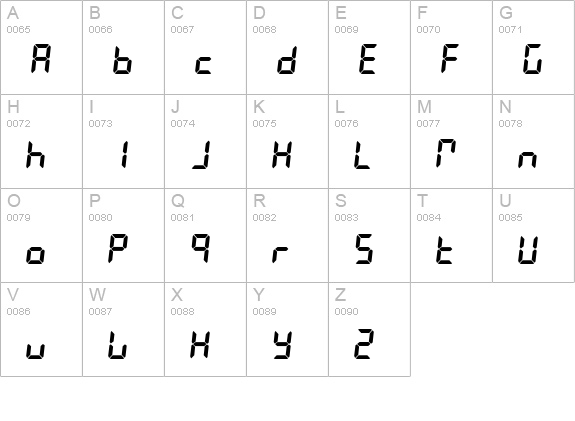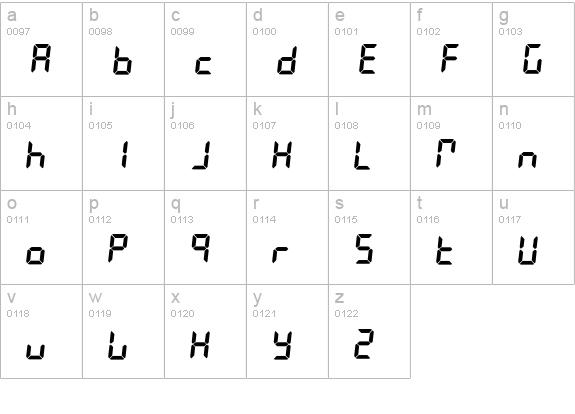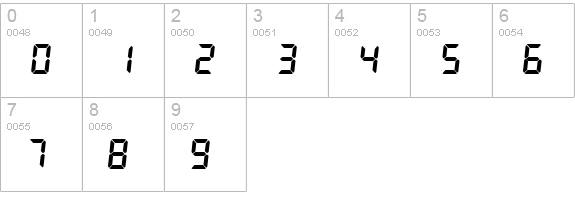
LiquidCrystal Font Details
LiquidCrystal font is a modern and stylish typeface that exudes a sleek and sophisticated vibe. With its clean lines and sharp edges, this font is perfect for various design projects, from branding to signage. The bold yet elegant look of LiquidCrystal font makes it stand out and grab attention effortlessly. This versatile font is ideal for creating eye-catching headlines, titles, and logos that leave a lasting impression. Its unique design adds a touch of contemporary flair to any project, making it a popular choice among designers and creatives. Best of all, LiquidCrystal font is available for free download at FontsMarket.com. This means you can easily access this stunning font and use it in your projects without any cost. Don't miss out on the opportunity to enhance your designs with the modern and stylish LiquidCrystal font today!